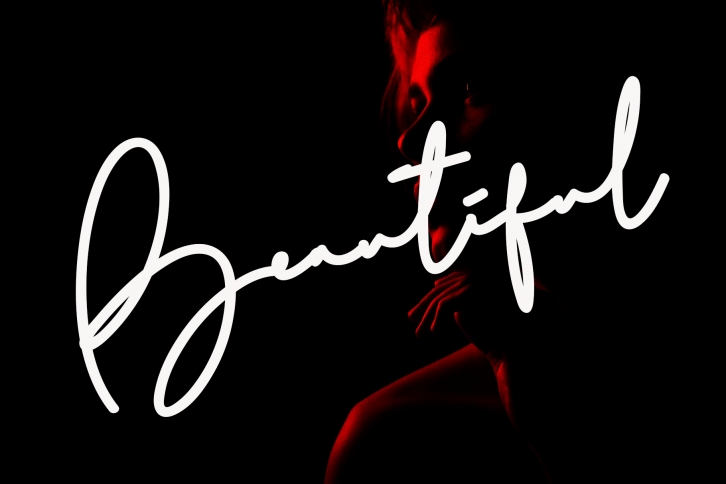
beautiful is a stylish and elegant signature script font. It is perfect for product packaging, branding projects, magazines, social media posts, wedding invitations, and more.